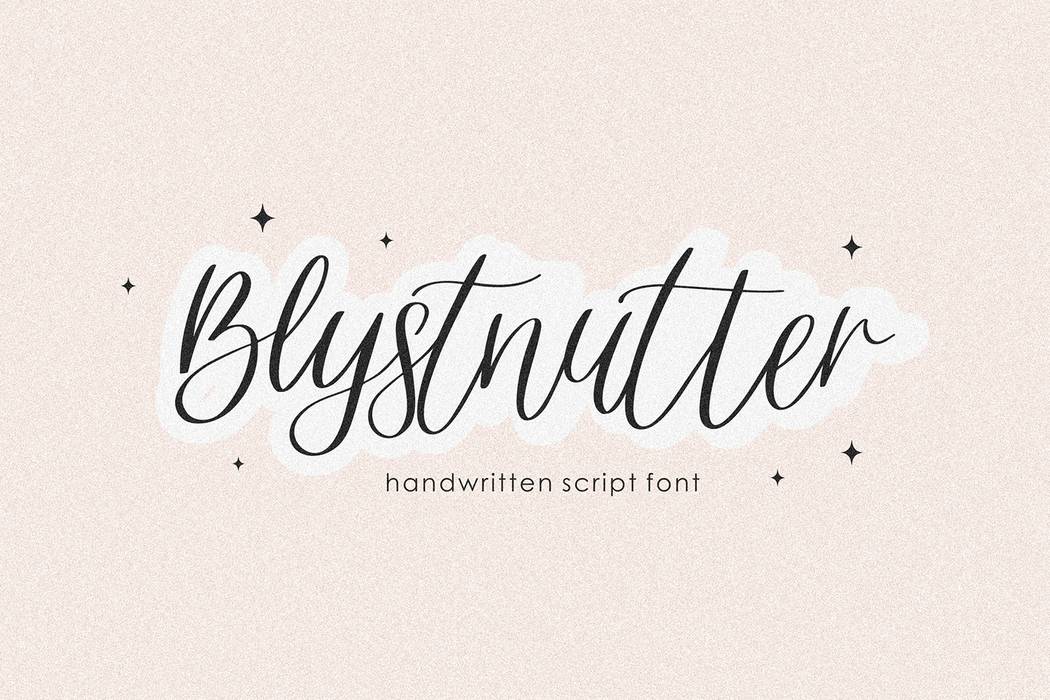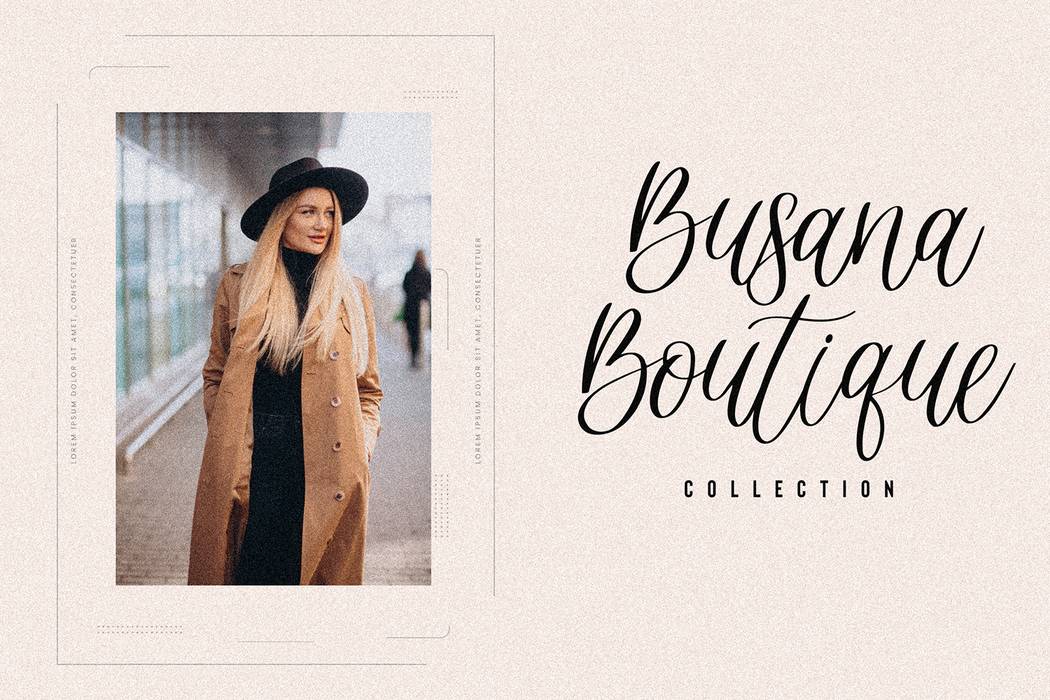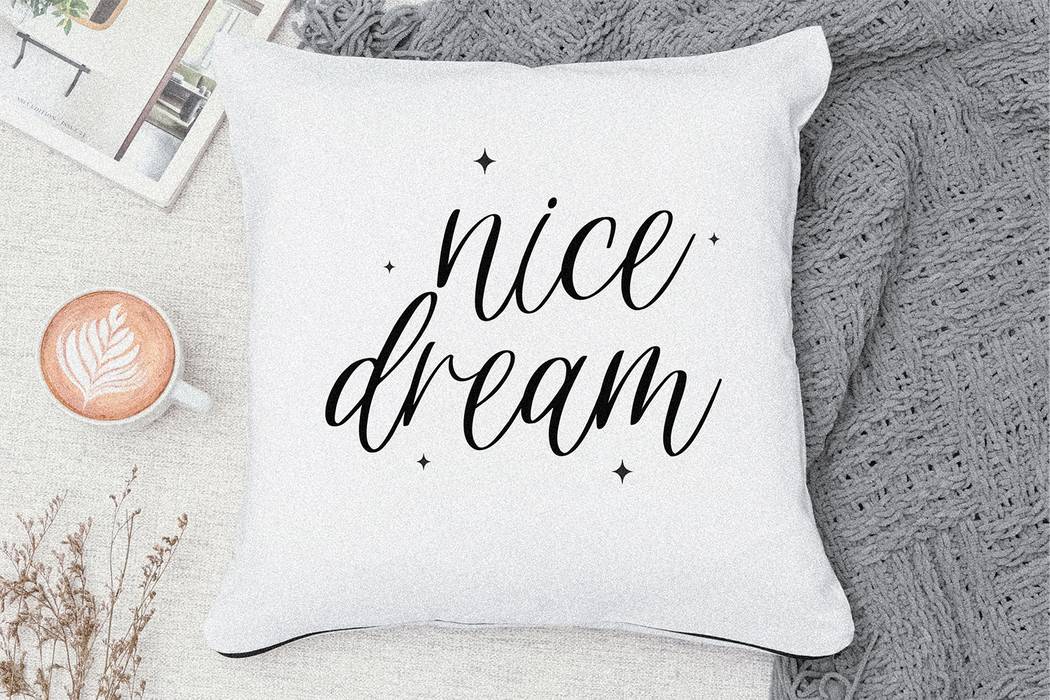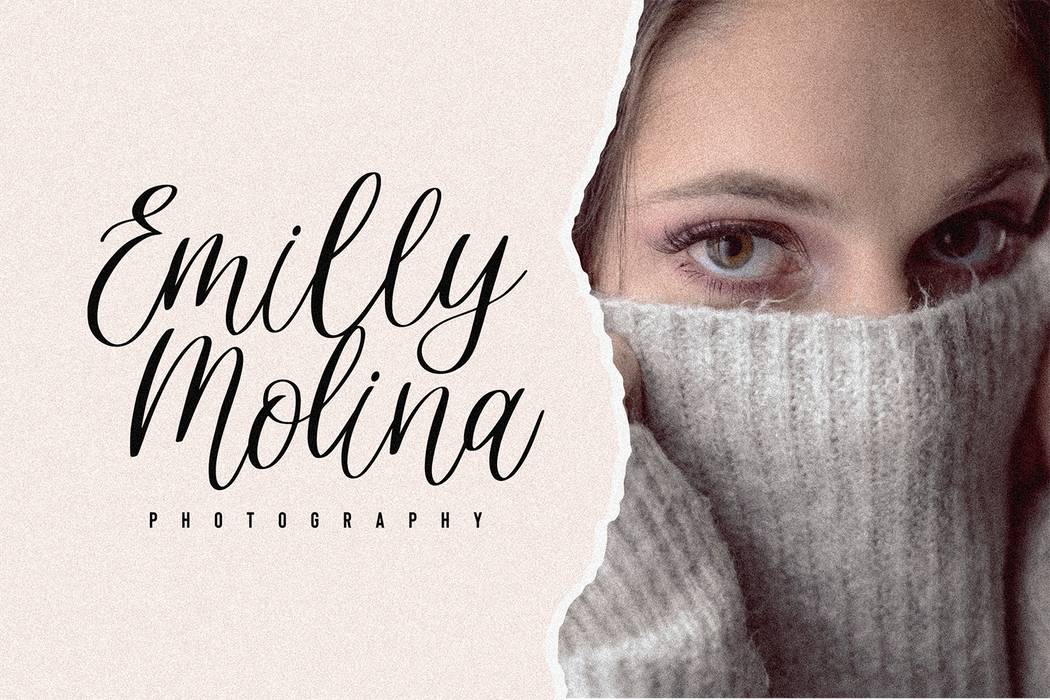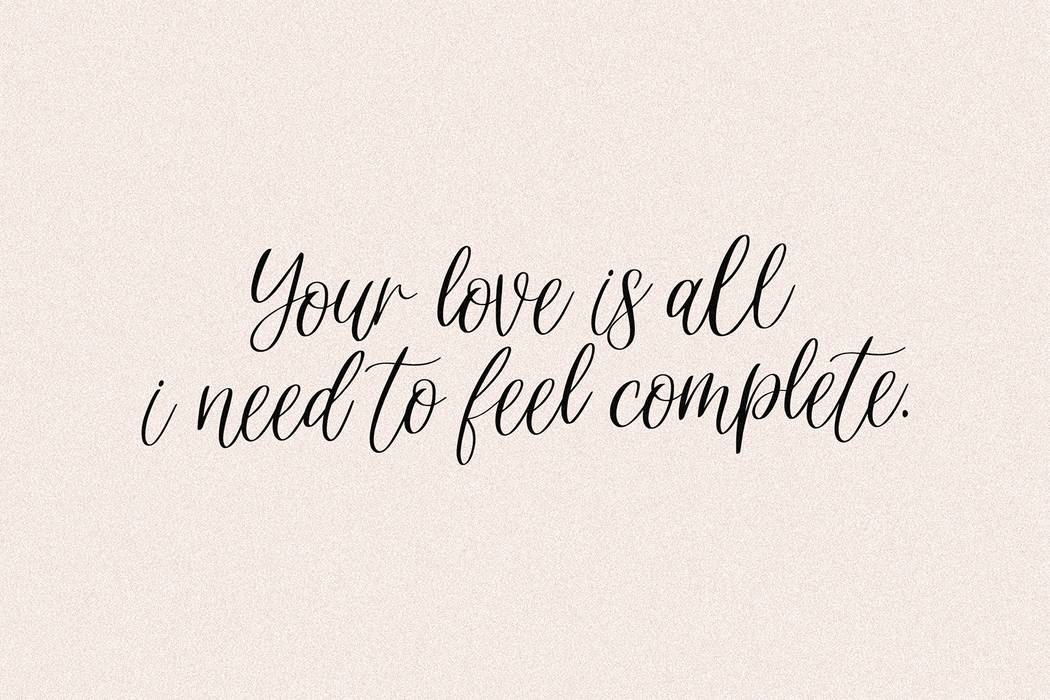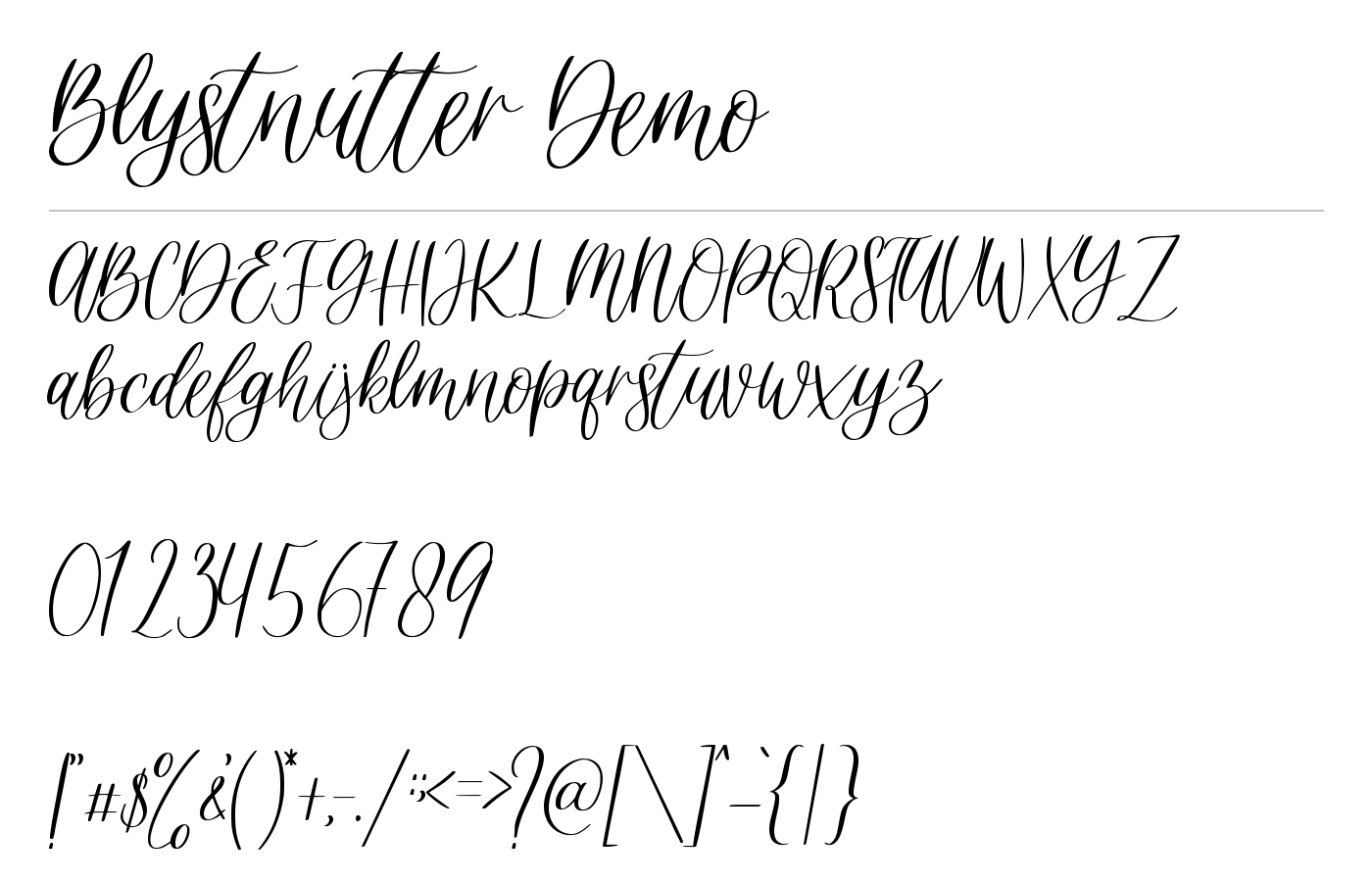
Blystnutter is a delicate, elegant script font featuring thin, fluid strokes with a graceful, handwritten feel. Its tall, narrow letterforms and flowing connections make it perfect for adding a touch of sophistication to invitations, branding, and stylish editorial designs. This font works best in decorative or headline contexts where its refined personality can truly shine.
Blystnutter Font
About Blystnutter Font
| Font family | Blystnutter Font |
| Designer | Minitype |